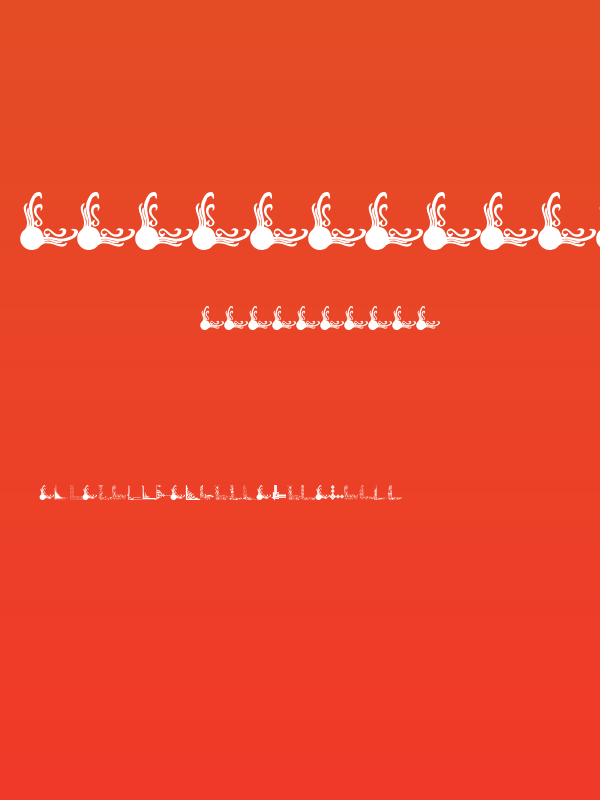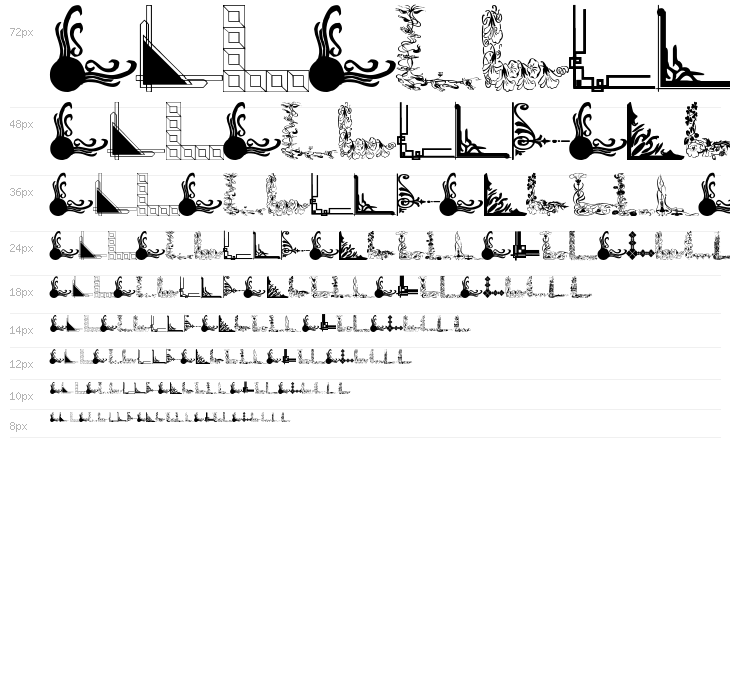
Vintage Decorative Corners 30 Font
Vintage Decorative Corners 30 Description
This is a collection of vintage decorative corners, each designed with intricate details and ornate patterns. The designs feature a variety of styles, from floral motifs to geometric shapes, offering a rich and elegant aesthetic. These corners are perfect for adding a touch of sophistication and classic charm to any project. The designs are consistent in their use of bold lines and intricate detailing, making them stand out as decorative elements. The collection showcases a range of styles, ensuring versatility and adaptability for different design needs.
Proposed ProjectsThese decorative corners are ideal for use in vintage-themed invitations, ornate borders for certificates, decorative elements in scrapbooking, or as embellishments in graphic design projects.